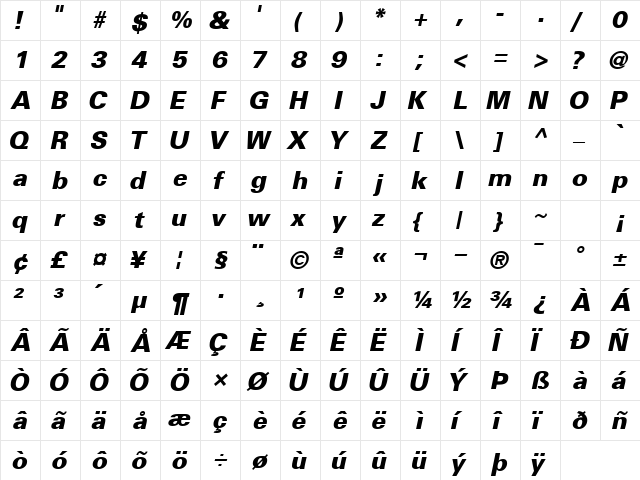
NovaBlackSSK Italic Font Preview
NovaBlackSSK Italic
NovaBlackSSK Italic Font Details
Design Context for NovaBlackSSK Typeface
NovaBlackSSK is a composed and adaptable typeface that performs quietly and consistently across a wide range of design contexts. Its italic angle brings a sense of urgency and motion to the letterforms.
Pro Tip: Use NovaBlackSSK for emphasis, pull quotes, and subheadings where its slanted energy can add rhythm to the layout.